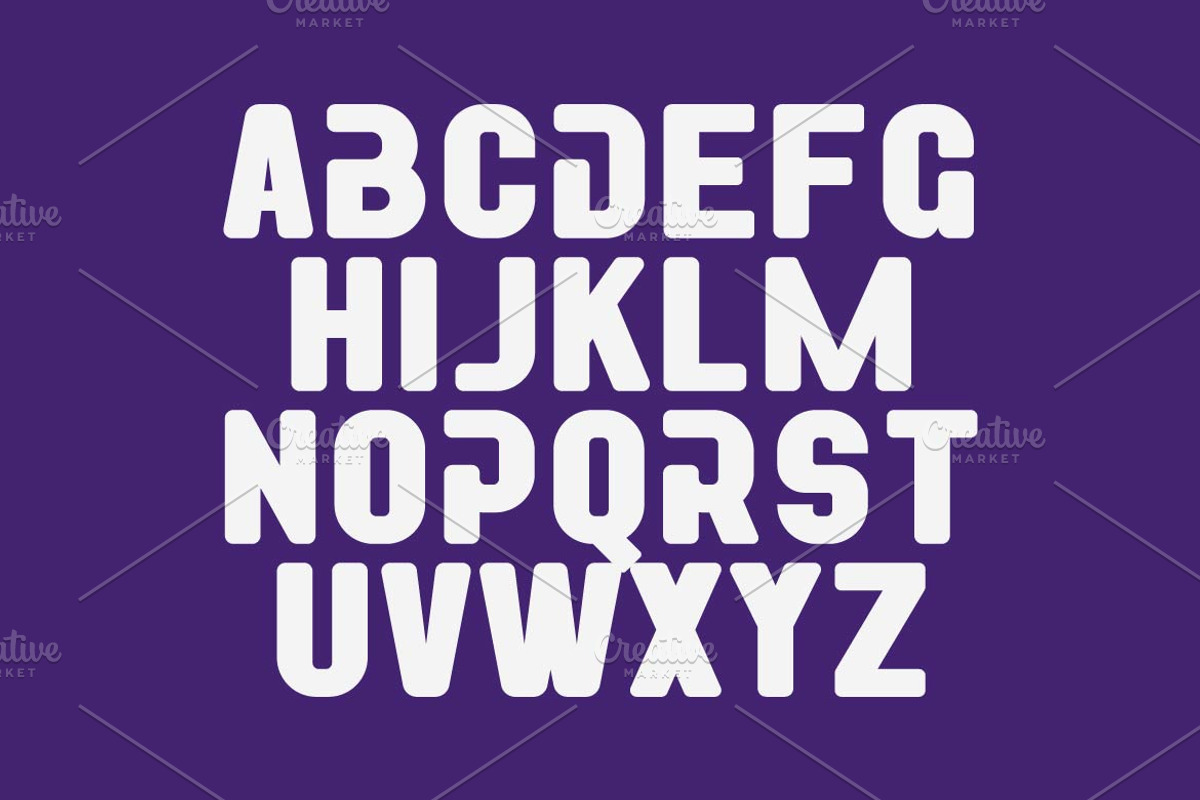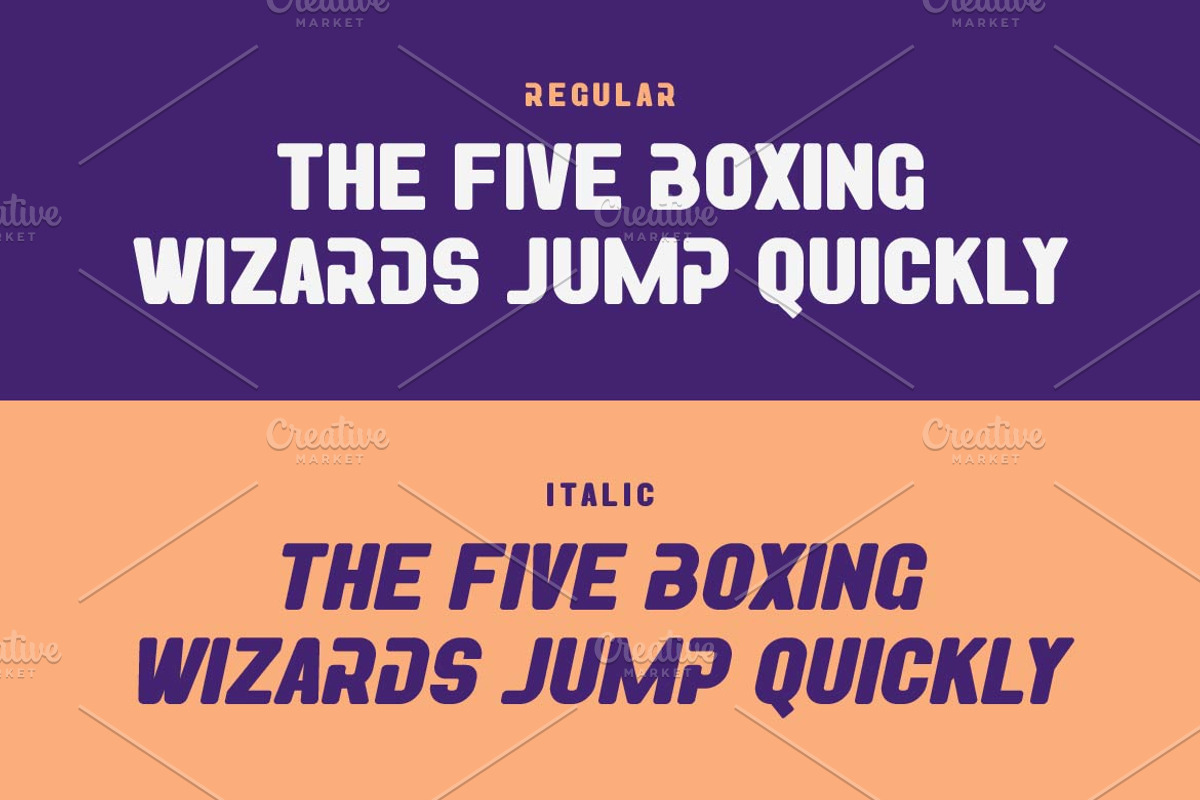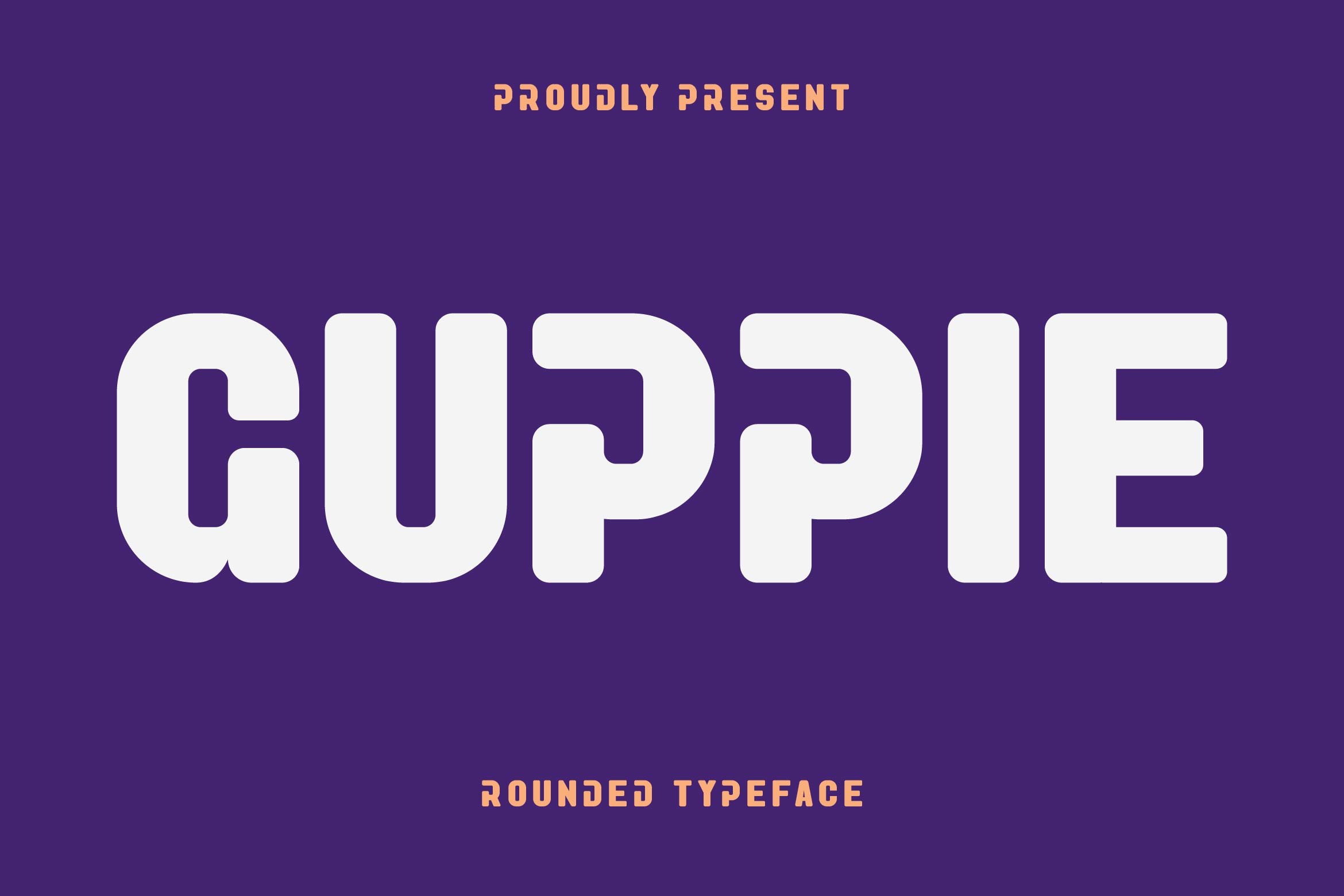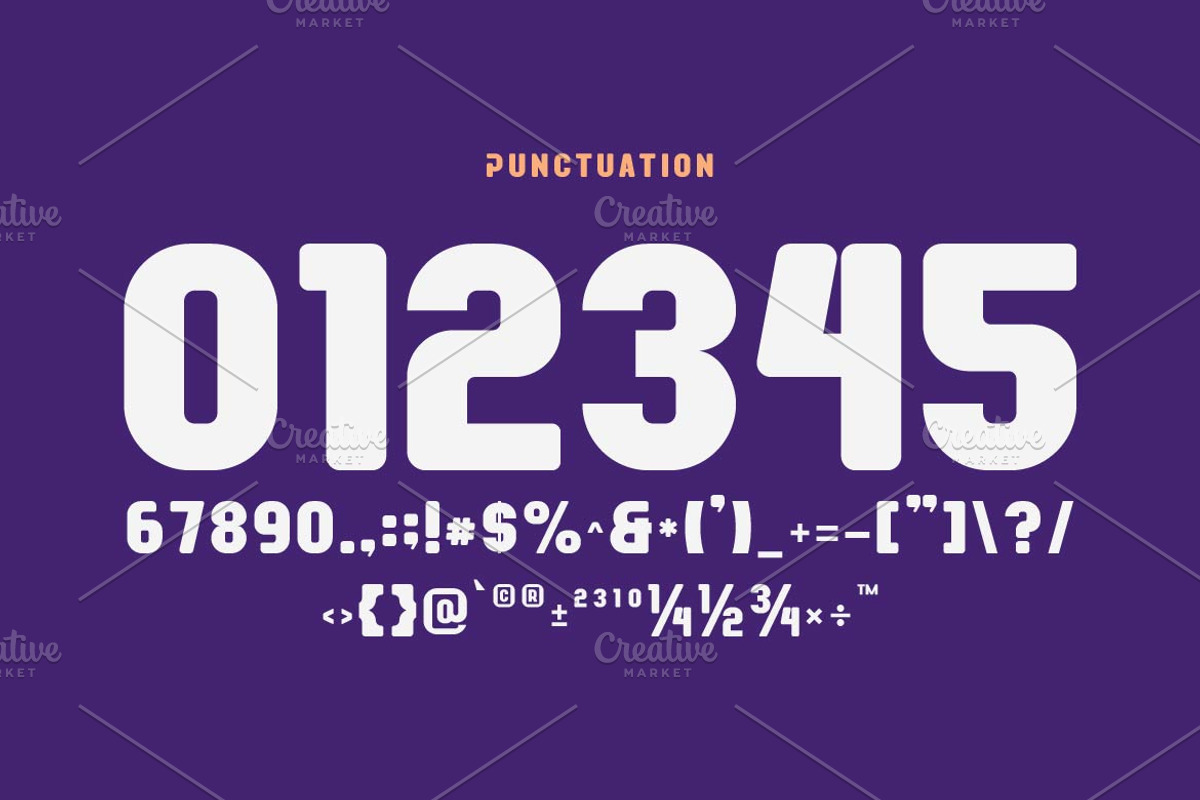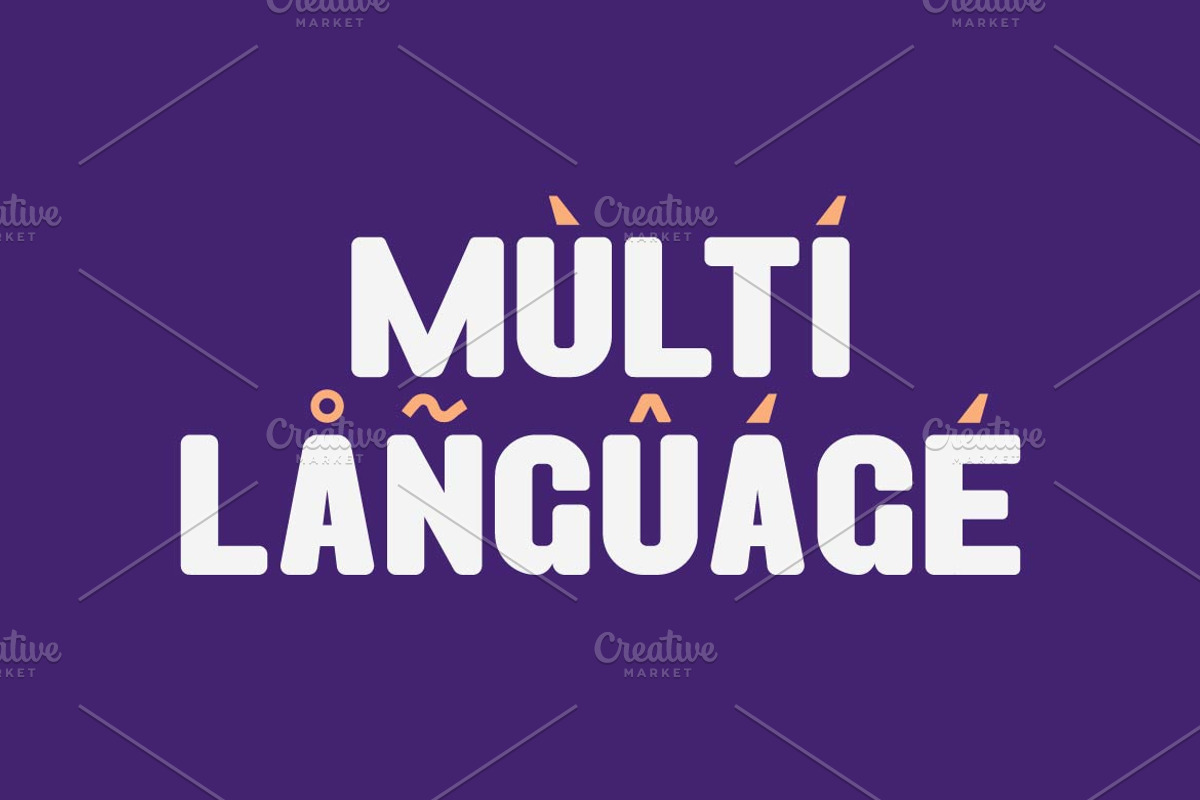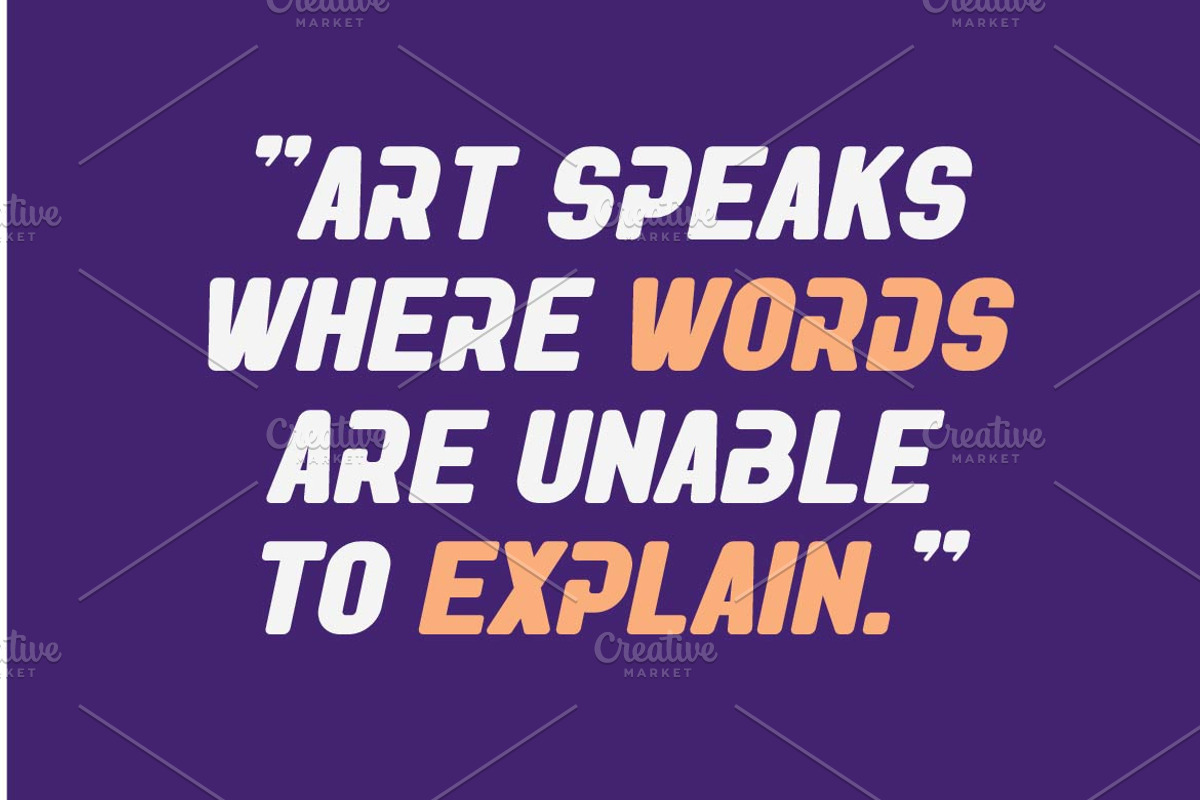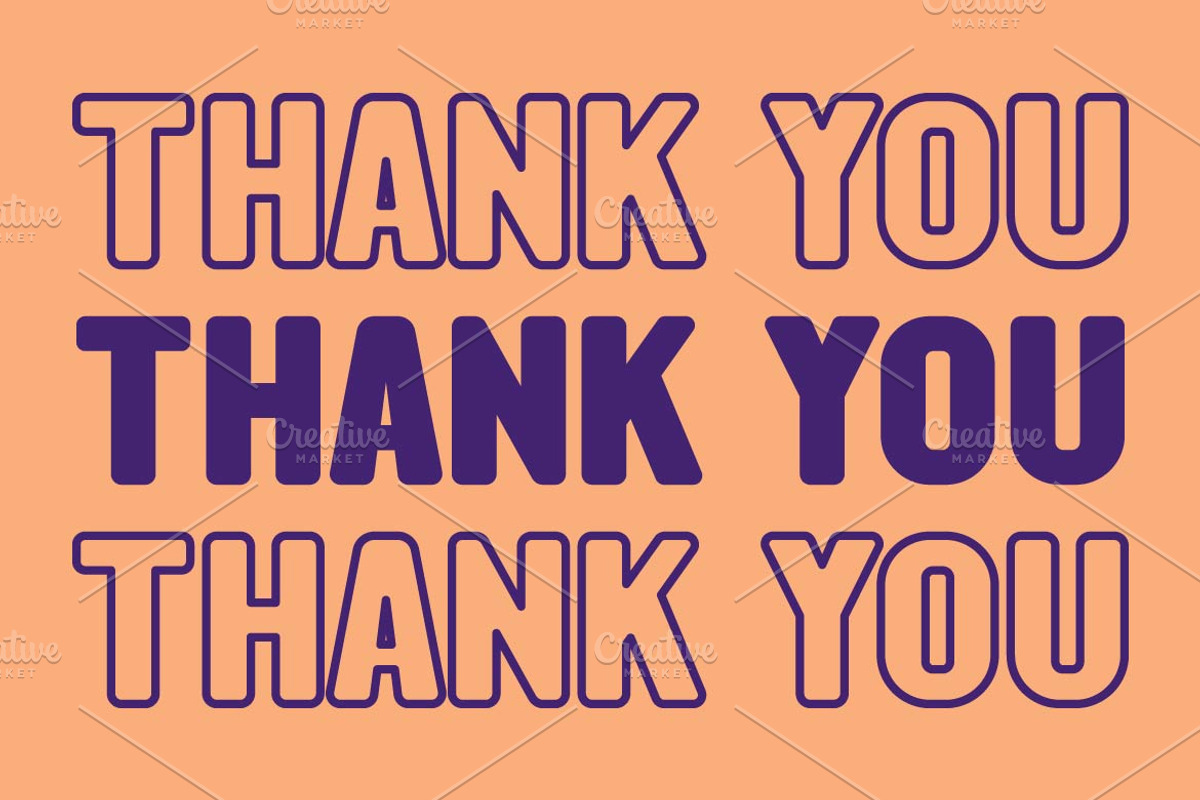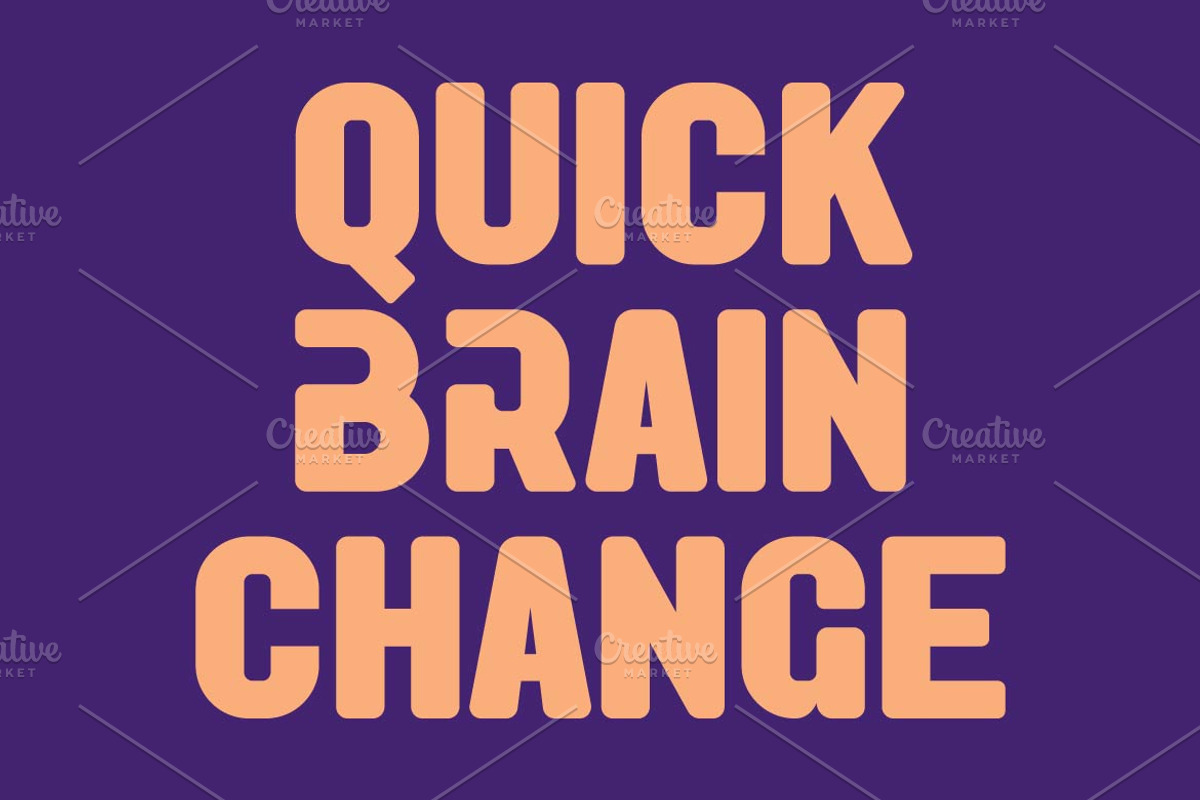
Guppie Rounded Logo Font
Guppie is a rounded sans serif font full of friendly and modern vibes. Its soft curves and clean structure make it perfect for branding, children’s designs, apps, packaging, and creative projects. Equipped with multilingual support, ligatures, and alternates, Guppie brings a warm, approachable personality to any design with a playful yet professional touch.